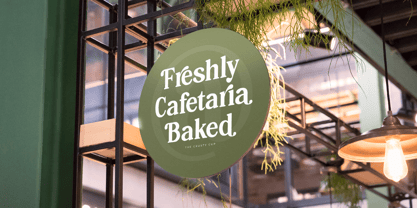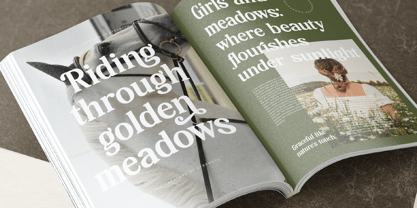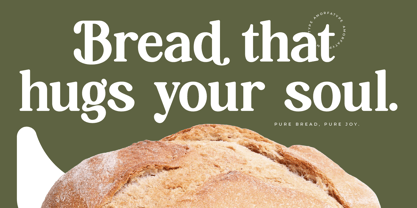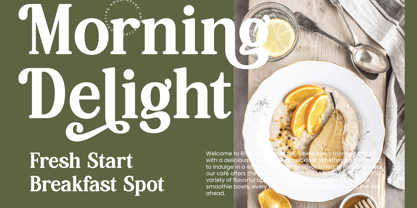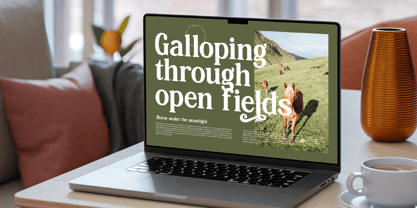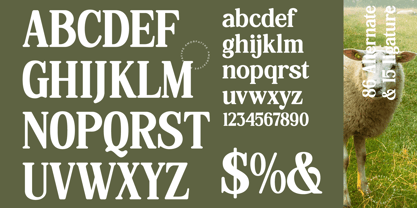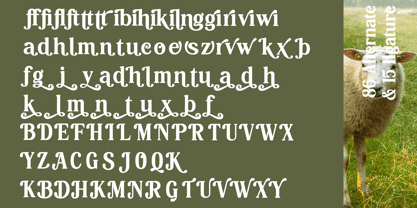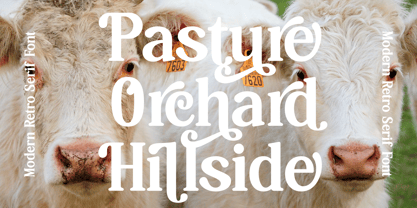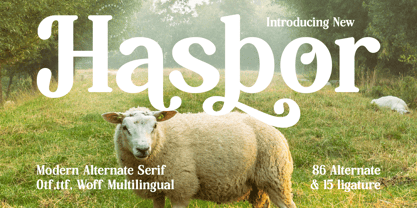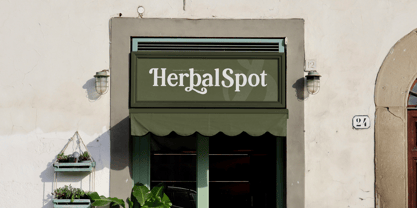
Hasbor
por Amorfa Type
La familia tipográfica Hasbor fue diseñada por Shiddiq Roihan y publicada por Amorfa Type. Hasbor contiene 2 estilos y opciones de paquete familiar. Más información sobre esta familia
Hasbor Modern Alternate Serif Font by Amorfatype
Hasbor is a bold and modern alternate serif font that redefines elegance with a contemporary twist. Featuring clean, geometric serifs and refined alternate letterforms, this font exudes sophistication and creativity, making it an excellent choice for diverse design projects. The harmonious contrasts in stroke weights and its distinct design elements give Hasbor a polished and unique appearance, perfectly balancing classic tradition with modern innovation.
Engineered for versatility, Hasbor performs exceptionally across a wide range of applications, from high-end branding and editorial layouts to digital design interfaces. Its bold yet stylish character stands out in impactful headlines while retaining excellent readability in smaller text sizes. Each glyph is meticulously crafted to ensure a perfect balance of functionality and aesthetics, delivering a seamless experience for designers and audiences alike.